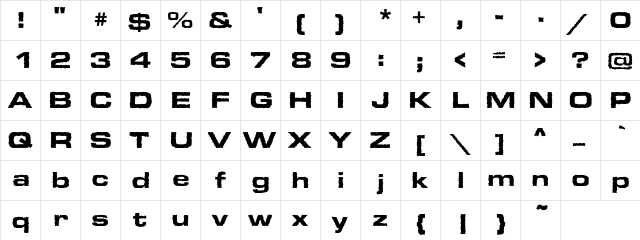
Grunge Urostl Ext Black Regular
Design Context for Grunge Urostl Ext Black Typeface
Grunge Urostl Ext Black embraces imperfection — its rough, textured character adds raw authenticity to designs that want to feel lived-in and unconventional.
A strong fit for alternative music projects, graffiti-adjacent design, and anything that deliberately resists polish.
Pro Tip: Use Grunge Urostl Ext Black at larger sizes where the texture and irregularity of each letterform can be clearly seen — it loses its character at small sizes.